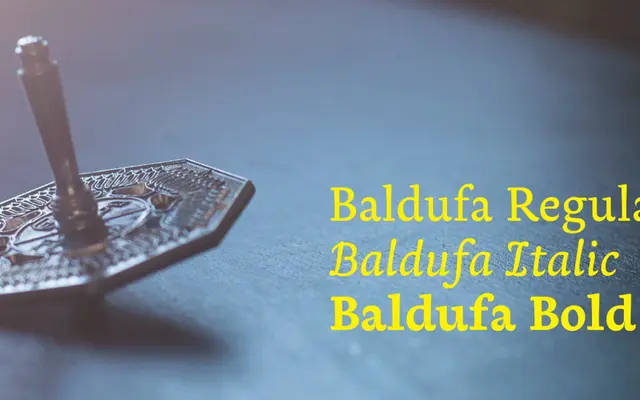
A multi-script serif spanning Latin, Arabic, Cyrillic and Greek, distinguished by rounded serifs, ink traps and a deliberately imperfect character drawn from old printing methods.
Rounded serifs, irregular vertical stems and extremely thin junctions give Baldufa a warmth and quirkiness that sets it apart from conventional text serifs. The italic drops the serifs entirely for greater expressivity, while Arabic Naskh softens traditional calligraphic contrast and adds rounded terminals to match the Latin's overall texture. Multiple Granshan, TDC and Morisawa awards recognise the quality of the multi-script design, which was built specifically for cultural catalogues and publications requiring harmonious cross-script setting.
Baldufa is a serif with rounded serifs, irregular vertical stems and ink traps drawn from old printing idiosyncrasies; its deliberately imperfect, humanist character places it outside clean transitional or old-style categories.